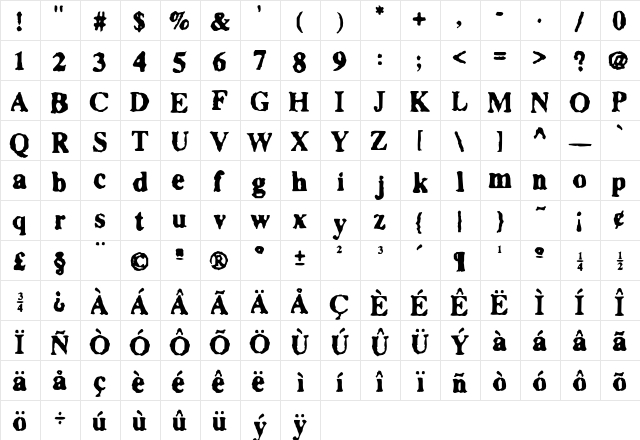
Facsimiled Bold
Design Context for Facsimiled Typeface
Facsimiled takes a measured approach to typography — its balanced proportions and neutral character make it a reliable workhorse for both digital and print work. Its bold stroke weight gives it real presence on the page.